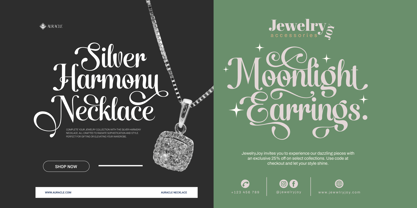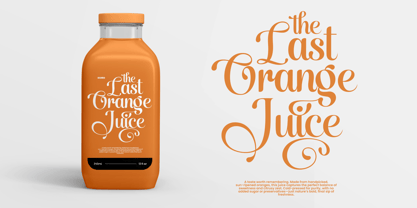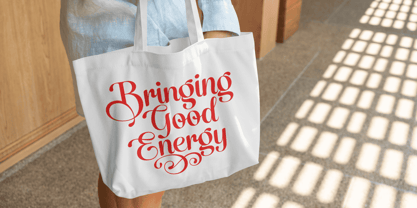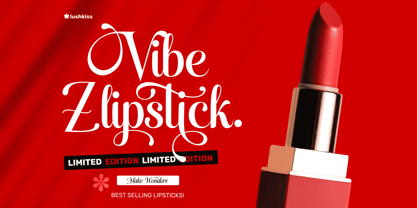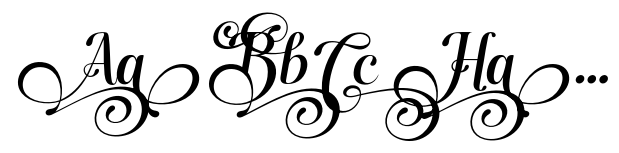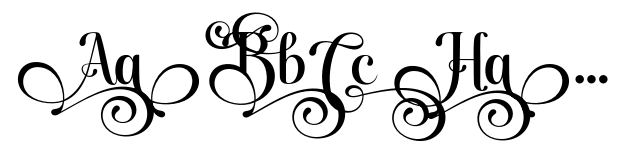
Santiole
by Mans Greback
The Santiole Font Family was designed by Måns Grebäck and published by Mans Greback. Santiole contains 6 styles and family package options. More about this family
Santiole Script is a playful yet regal lettering style that flourishes with a sense of celebration. Each letter carries a whimsical twist at its terminals, reminiscent of theatrical scrolls or festive signage. With a high contrast between thick and thin strokes, it radiates a strong personality while retaining a smooth flow across words.
The font gives the impression of elegance laced with joy—perfect for making a statement that is both classy and spirited. Imagine a wedding invitation at a vintage carnival, or a boutique logo where tradition meets flair.
The font is built with advanced OpenType functionality and guaranteed top-notch quality, containing stylistic and contextual alternates, ligatures and more automatic and manual features; all to give you full control and customizability.
Designed and created by Mans Greback in 2025.
Designers: Måns Grebäck
Current Foundry: Mans Greback